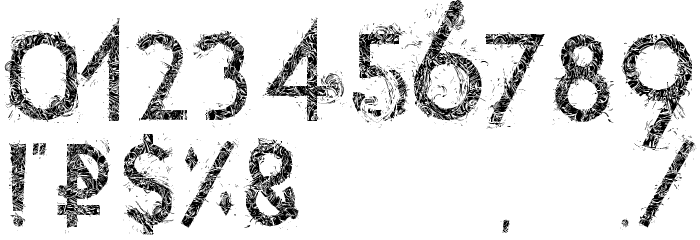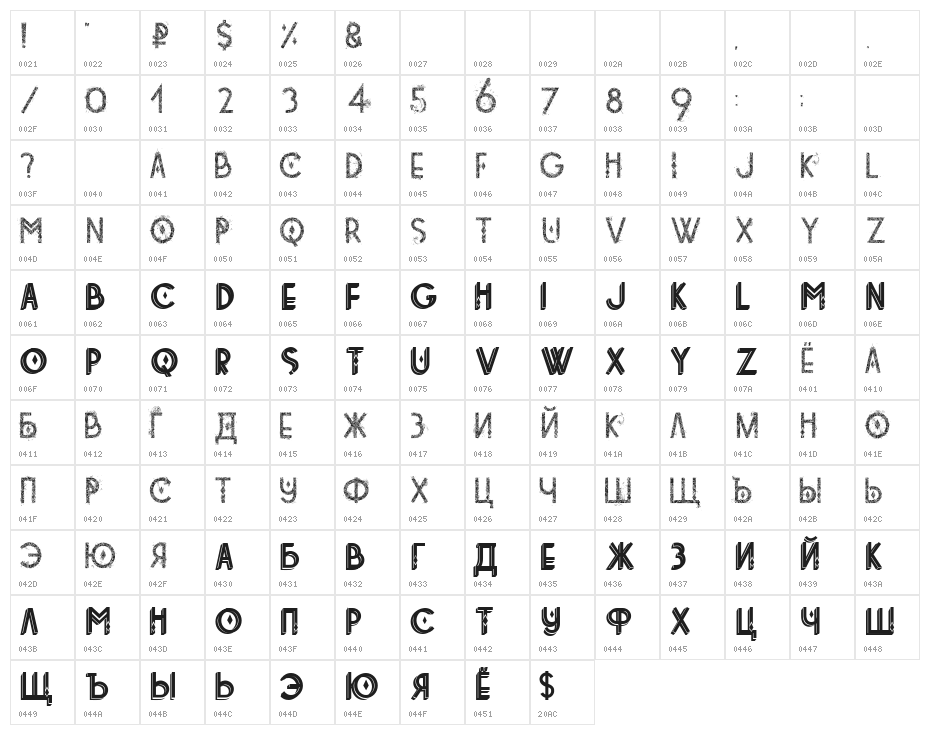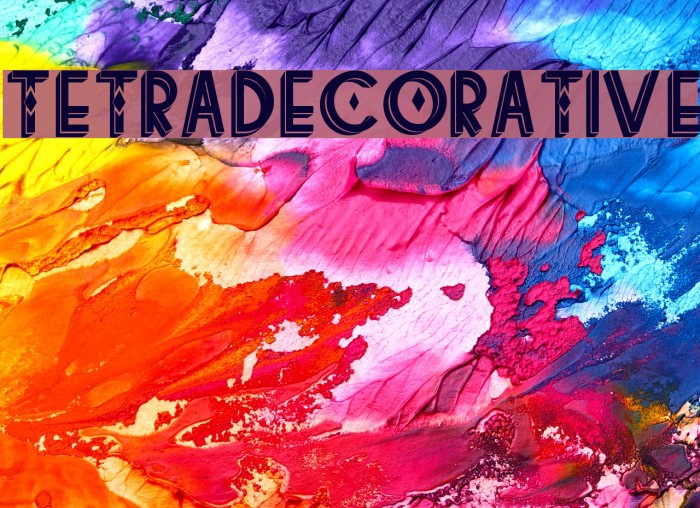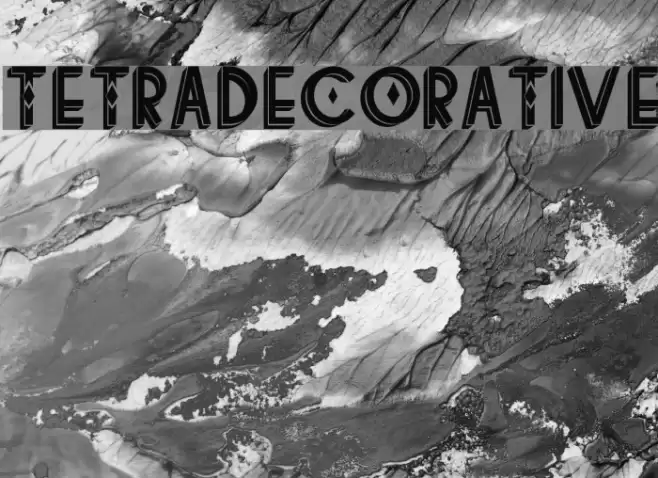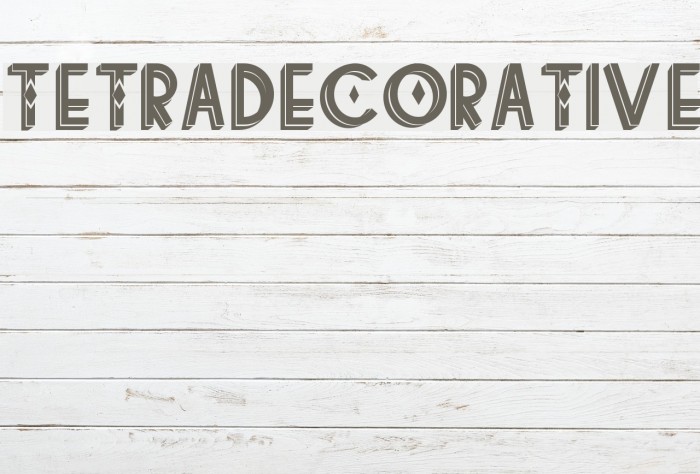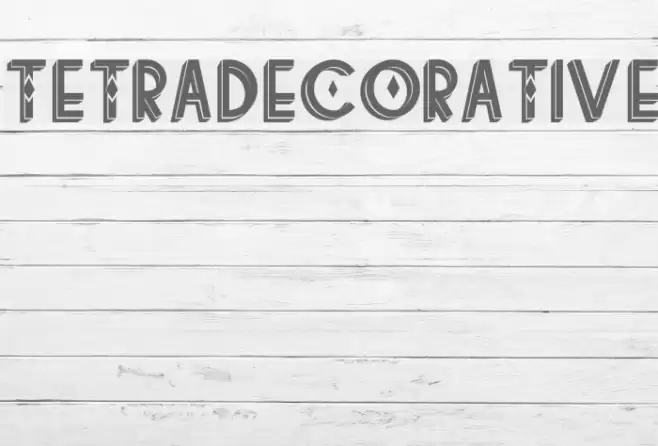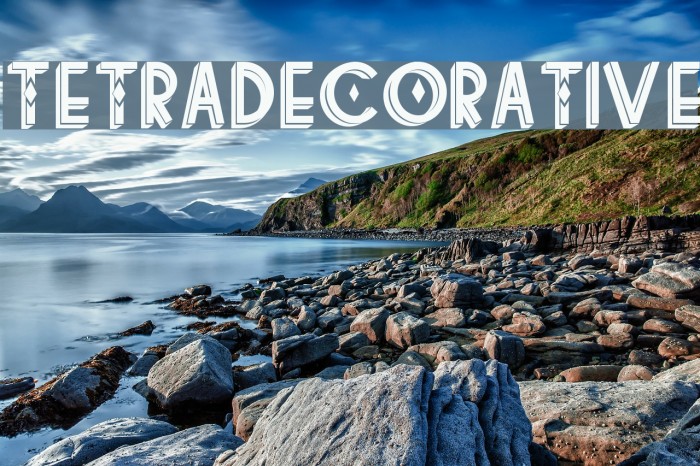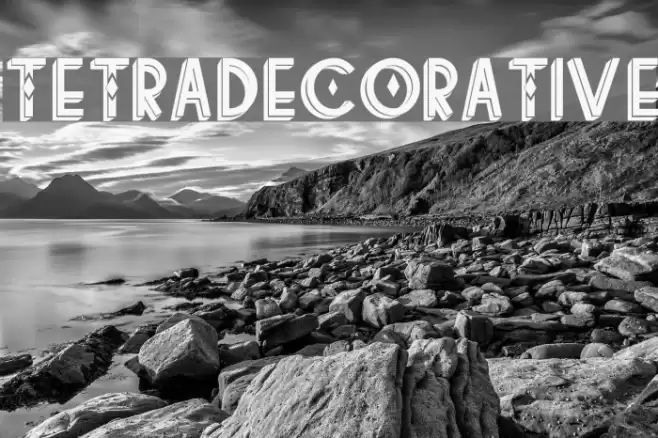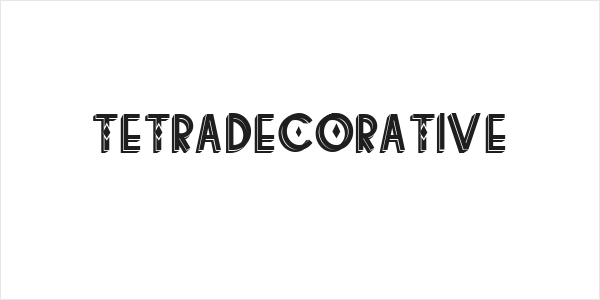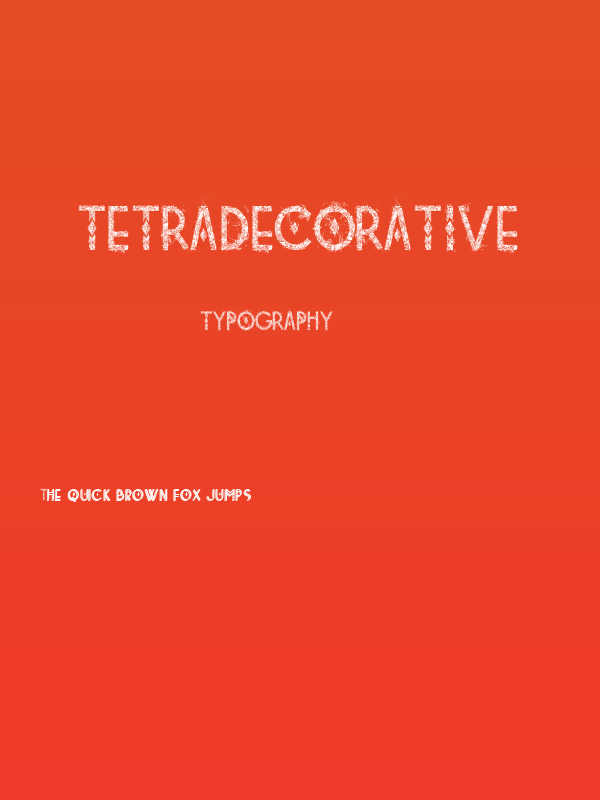
tetradecorative Font
tetradecorative Description
This font features a bold and decorative style with a distressed texture that gives it a grunge-like appearance. The uppercase letters are designed with a rough, worn-out effect, adding a vintage and edgy feel. The second style in the image presents a more solid and geometric design, with clean lines and a modern touch. The combination of these styles makes it versatile for various creative projects. The numbers and special characters maintain the distressed and bold characteristics, ensuring consistency throughout the font set.
| Overall Style | Vintage, Decorative |
| Proposed Projects | Ideal for posters, album covers, branding, and any project requiring a bold, vintage aesthetic. |